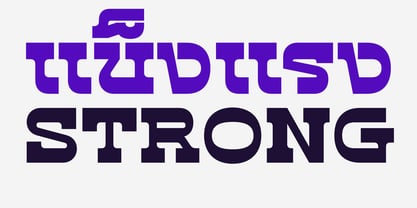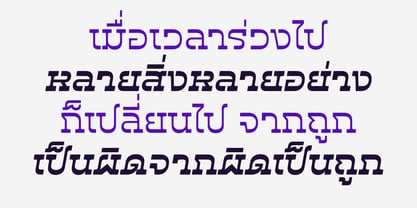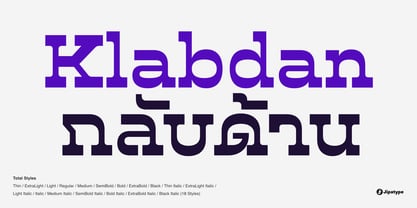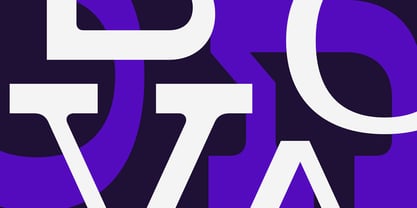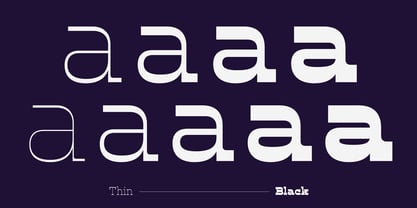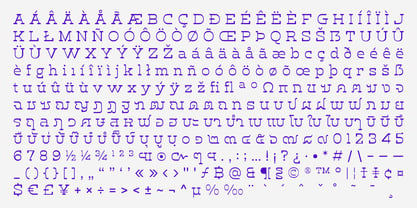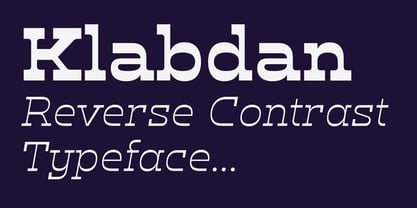
Klabdan
by Jipatype
The Klabdan Font Family was designed by Anupap Jaichumnan and published by Jipatype. Klabdan contains 18 styles and family package options. More about this family
Klabdan is a Reverse Contrast Slab Serif typeface inspired by a stroll through Fashion Island shopping mall. I was captivated by a shop sign featuring a unique reverse contrast slab serif, its unusual appearance immediately catching my eye. While I didn't know the font's name, it sparked an idea: to create my own interpretation. The result is Klabdan (meaning "reversed" in Thai), a font that embodies a sense of strength and solidity with its flat serifs.
This distinctive typeface is perfect for designs that demand attention and a touch of the unconventional. It's an excellent choice for headlines on posters, prominent signage, or eye-catching logos.
Klabdan comes in 18 styles and supports both Thai and Latin-1 languages.
Klabdan